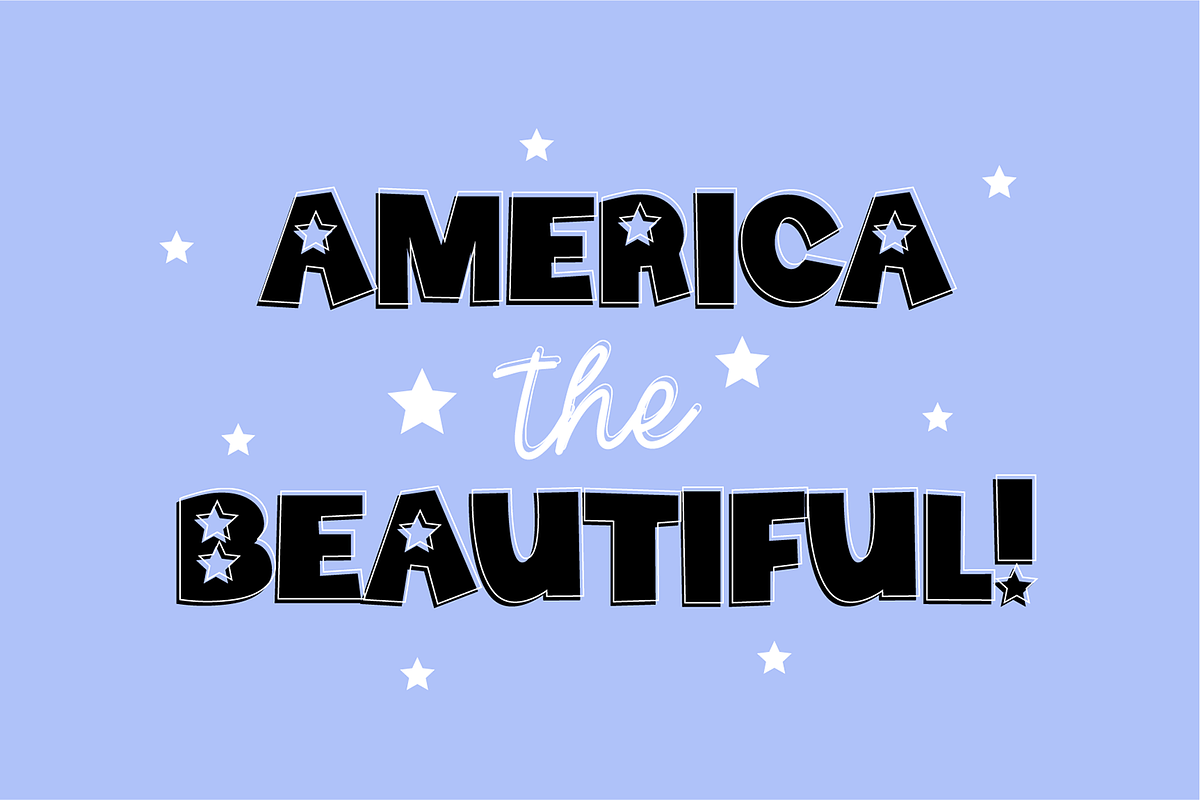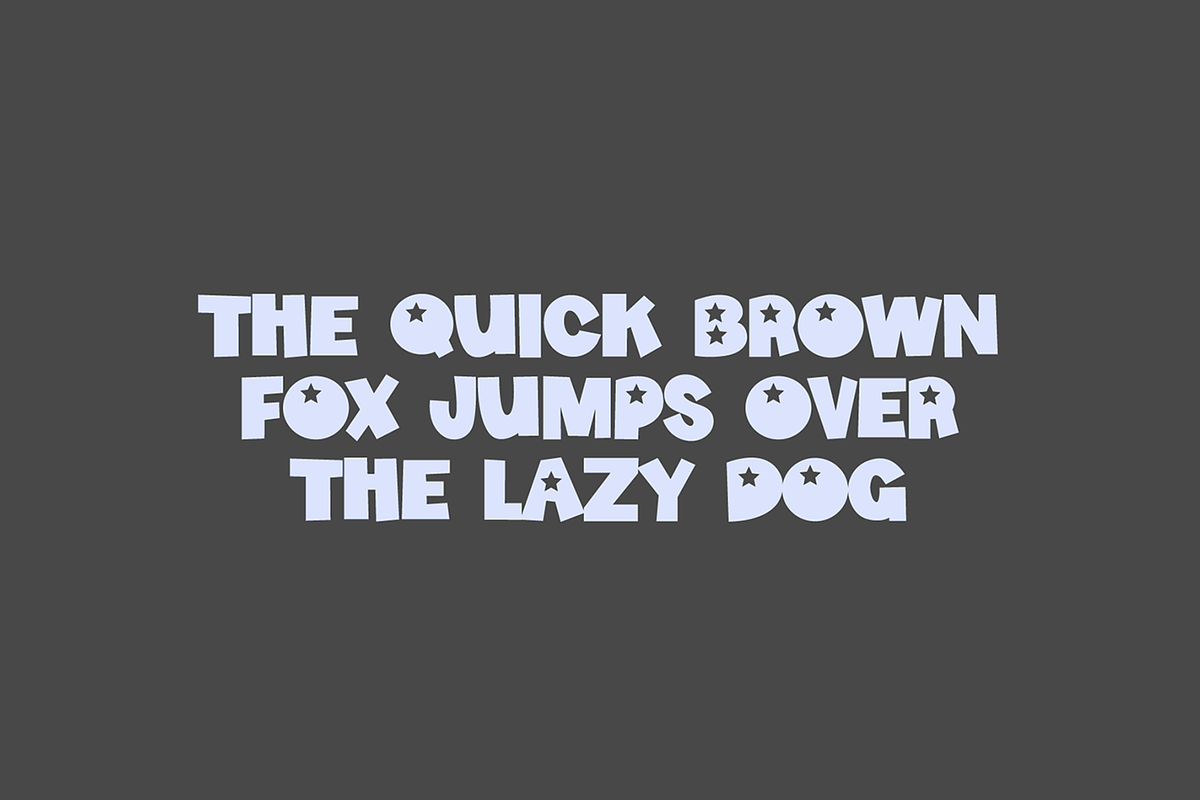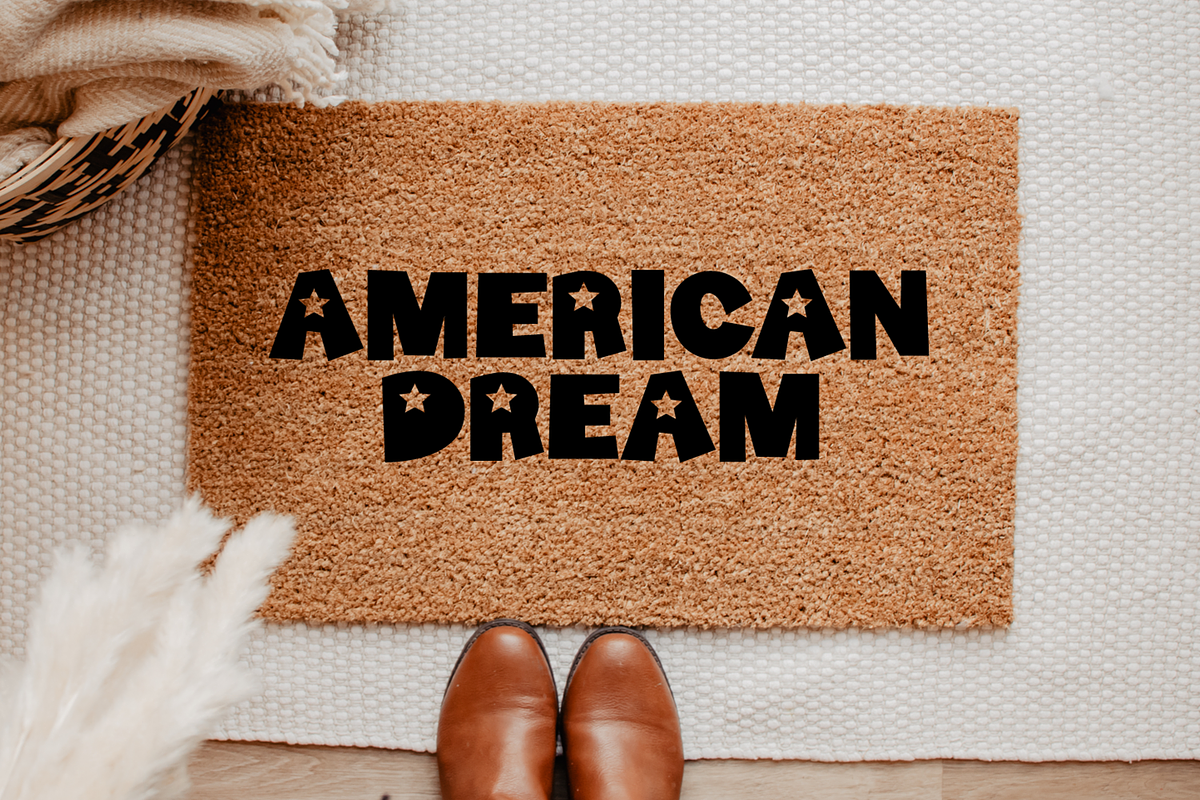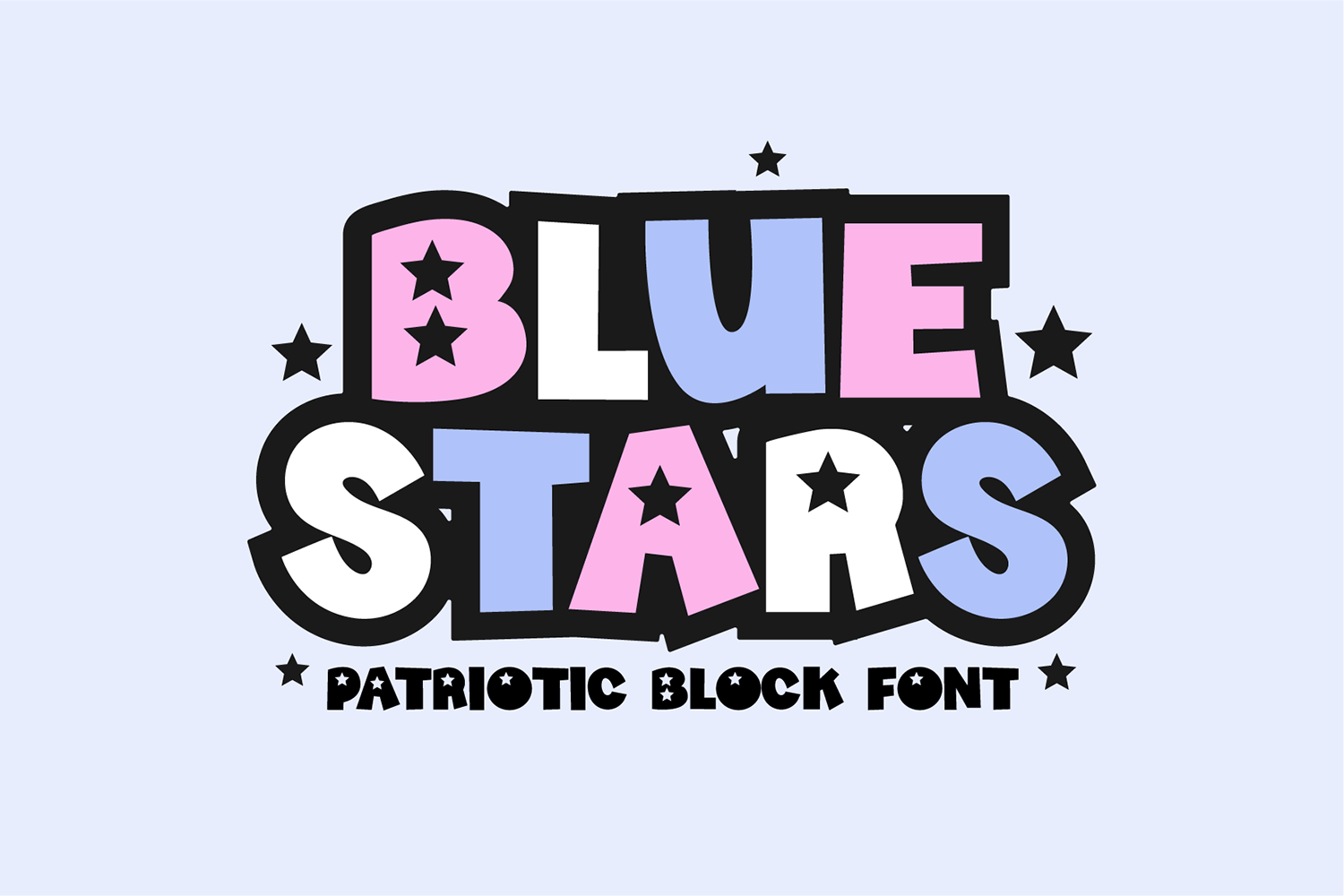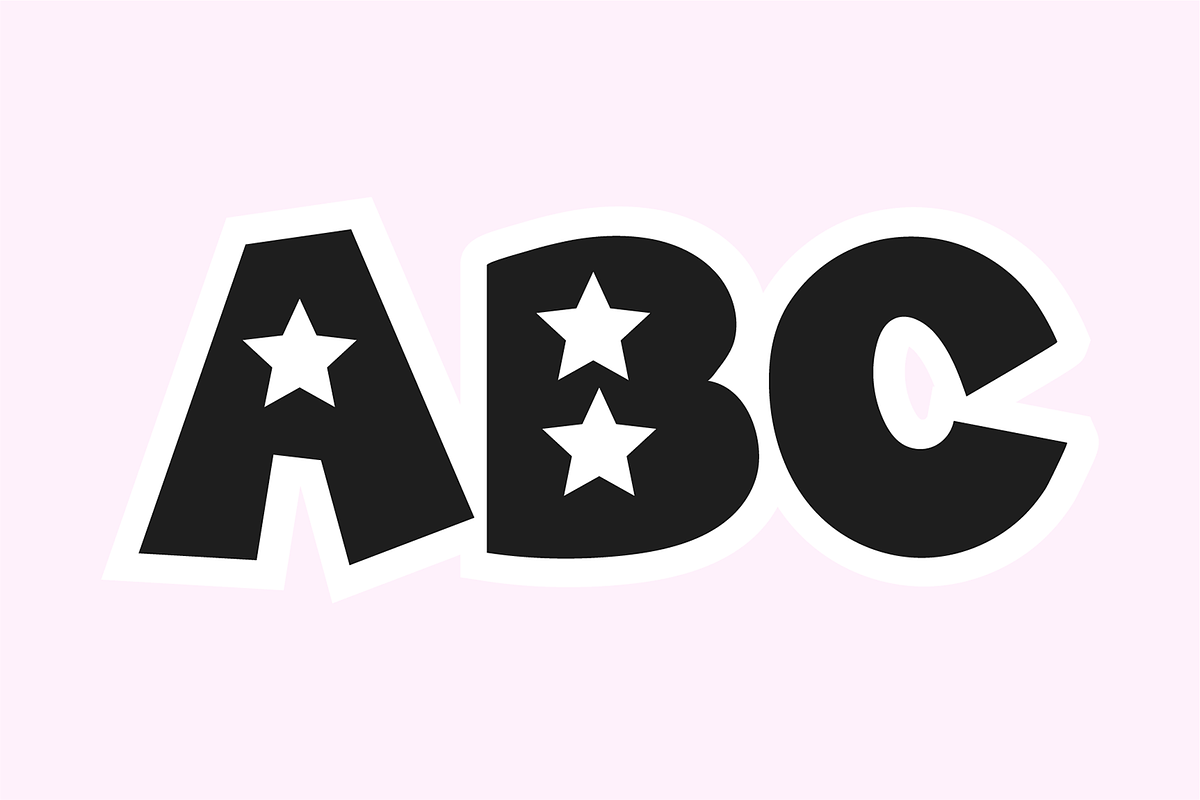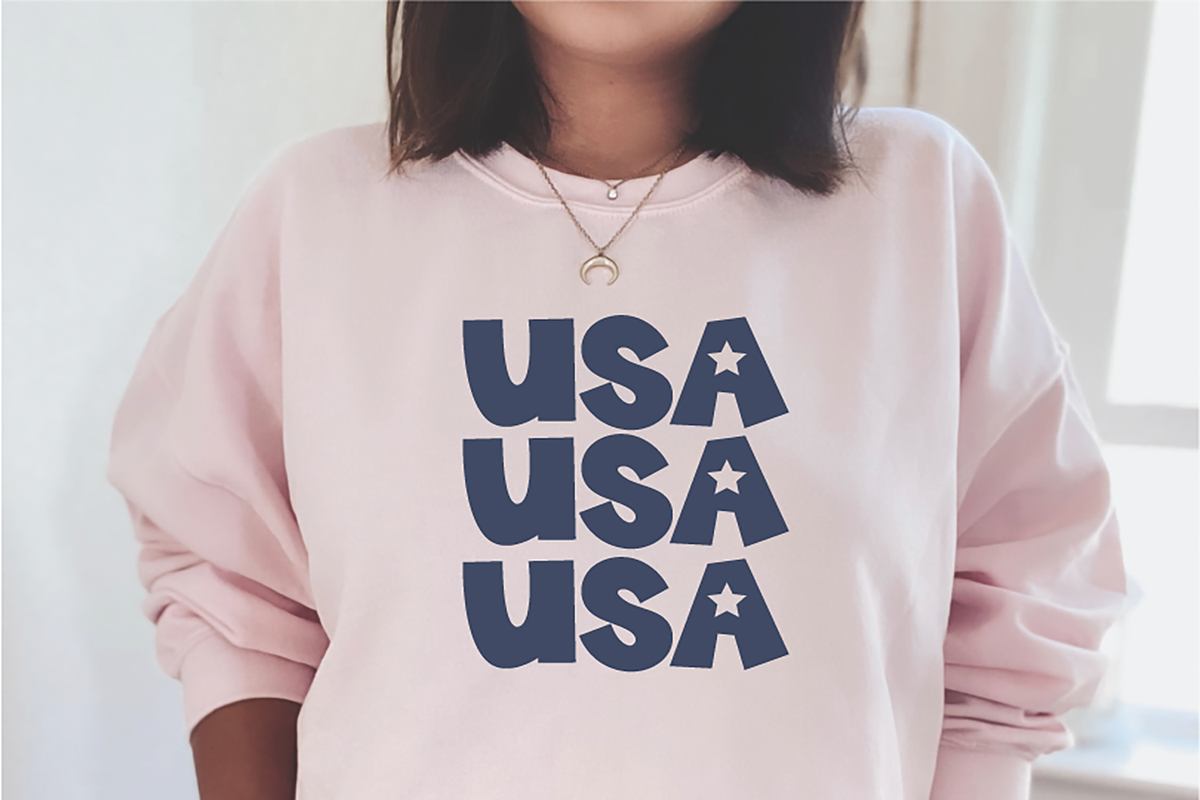
BLUE STARS 4th of July Star Font
"Blue Stars" star font.
This font is a bold block display font with stars. It is perfect for social media or crafty projects for the 4th of July or birthdays. Use it for branding, crafts for decor, invitations, and more! This font includes all caps glyphs, numbers, and basic punctuation marks.